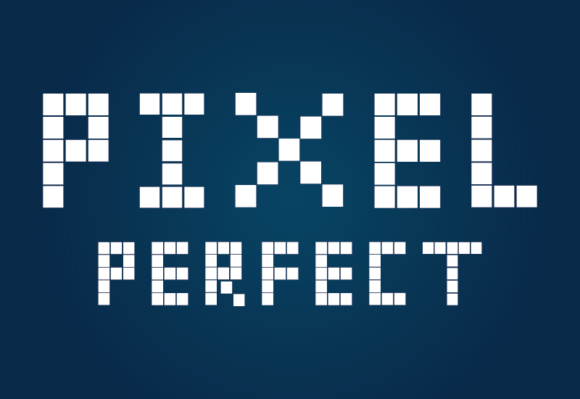
Zero Hero: A Display Font That Earns Its Name
First glance at Zero Hero isn’t about novelty—it’s about presence. It arrives with quiet confidence: clean geometry softened by subtle, humanized curves; sharp angles balanced by gentle terminals; a rhythm that feels both engineered and expressive. This isn’t a shouty display font chasing attention—it’s a composed one that commands it. The lowercase ‘a’ and ‘g’ carry just enough personality to avoid sterility, while the uppercase letters stand tall and legible without stiffness. It reads as modern typography with warmth—like a well-tailored blazer worn with a hand-knit scarf.
Zero Hero lives in the display font category, but it doesn’t behave like most. It avoids the cartoonish exaggeration of some display faces or the cold austerity of ultra-minimalist alternatives. Instead, it occupies a rare middle ground: distinctive enough for branding, restrained enough for extended visual systems. Its voice is calm authority—not corporate blandness, not indie whimsy. Think boutique skincare line, independent publisher, ceramic studio, or sustainable apparel brand—not tech startup pitch deck or viral meme account.
Where Zero Hero Actually Works (and Where It Shines)
In logo design, Zero Hero delivers immediate impact without sacrificing scalability. I’ve used it for a small-batch coffee roaster’s wordmark—clean on a matte black bag, crisp on a stainless steel portafilter, legible even at 16px on a mobile app icon. Its letterforms hold structure across sizes, and the spacing between characters feels intentional, not default. For brand identity, it pairs beautifully with a warm serif font for body copy—think Freight Text or GT America. That contrast creates hierarchy without friction: Zero Hero sets tone; the serif carries story.
Packaging design is where Zero Hero proves its maturity. On a linen-textured soap label, its subtle weight variation (especially in the Medium and Bold cuts) adds tactile sophistication. It breathes well beside minimalist photography and doesn’t compete with hand-drawn icons. For product labels—especially food, beauty, or craft goods—it conveys care and clarity without leaning into “organic” clichés. No leaf motifs required.
Social media graphics benefit from Zero Hero’s strong silhouette. On Instagram carousels or Pinterest pins, short headlines set in Zero Hero Bold pop against muted backgrounds without needing drop shadows or outlines. It works equally well in Canva templates and Cricut projects—its clean vector outlines cut cleanly, and its consistent stroke width prevents fraying at small physical sizes.
For editorial design—think zines, limited-run magazines, or blog headers—Zero Hero excels as a section title or pull-quote font. It gives weight to a single sentence without overwhelming adjacent text. In web design, I reserve it for H1s and hero banners only. It’s not meant for navigation menus or paragraph text. But when used that way—with generous line height and ample whitespace—it elevates perceived quality instantly.
Where to Use Zero Hero With Intention
Zero Hero is strongest in short-form contexts: brand marks, poster headlines, invitation suite accents, merchandise chest logos, digital ad banners, and quote overlays. It thrives when given room to breathe—so avoid cramming it into tight columns or dense infographics. It’s not ideal for long captions, pricing tables, or multi-line callouts unless tightly edited and generously spaced.
Uppercase settings deliver maximum impact—ideal for monogrammed tags, storefront signage, or social bios. Lowercase use feels more editorial and approachable, especially in Medium weight—but test carefully at smaller sizes. At 14px or below, readability softens. Always preview in black and white first: Zero Hero’s charm lies in its form, not color tricks.
What Zero Hero Does for Your Brand—Beyond Looks
Readability here isn’t about scanning paragraphs—it’s about instant recognition and emotional resonance. Zero Hero communicates competence and intentionality. That translates directly to audience trust, especially for small business owners and digital sellers who rely on perceived professionalism to close sales. When customers see Zero Hero on a handmade candle label or a print-on-demand t-shirt, they subconsciously register craftsmanship—not just content.
Hierarchy becomes intuitive. Even without color or size shifts, Zero Hero naturally dominates supporting typefaces. That consistency strengthens brand recognition across touchpoints: same font on a website header, Instagram highlight cover, and printed thank-you card signals cohesion. And because it’s not overused, it avoids visual fatigue—your audience won’t tune it out after three scrolls.
Practical Designer Notes You’ll Actually Use
Zero Hero doesn’t solve every typographic problem—and it shouldn’t. Its strength is focus: it knows its role, performs it consistently, and leaves room for other voices in your system. It’s the kind of display font you reach for when you need clarity with character, distinction without drama, and polish without pretense. For designers building real brands—not just mood boards—it’s less of a trend and more of a tool that earns its place, project after project.